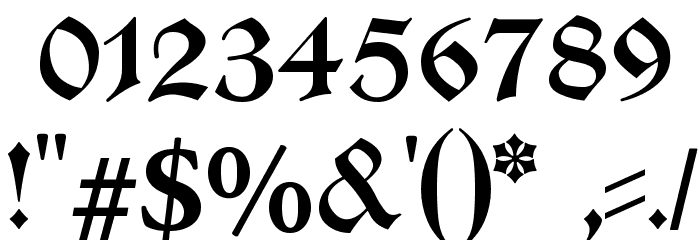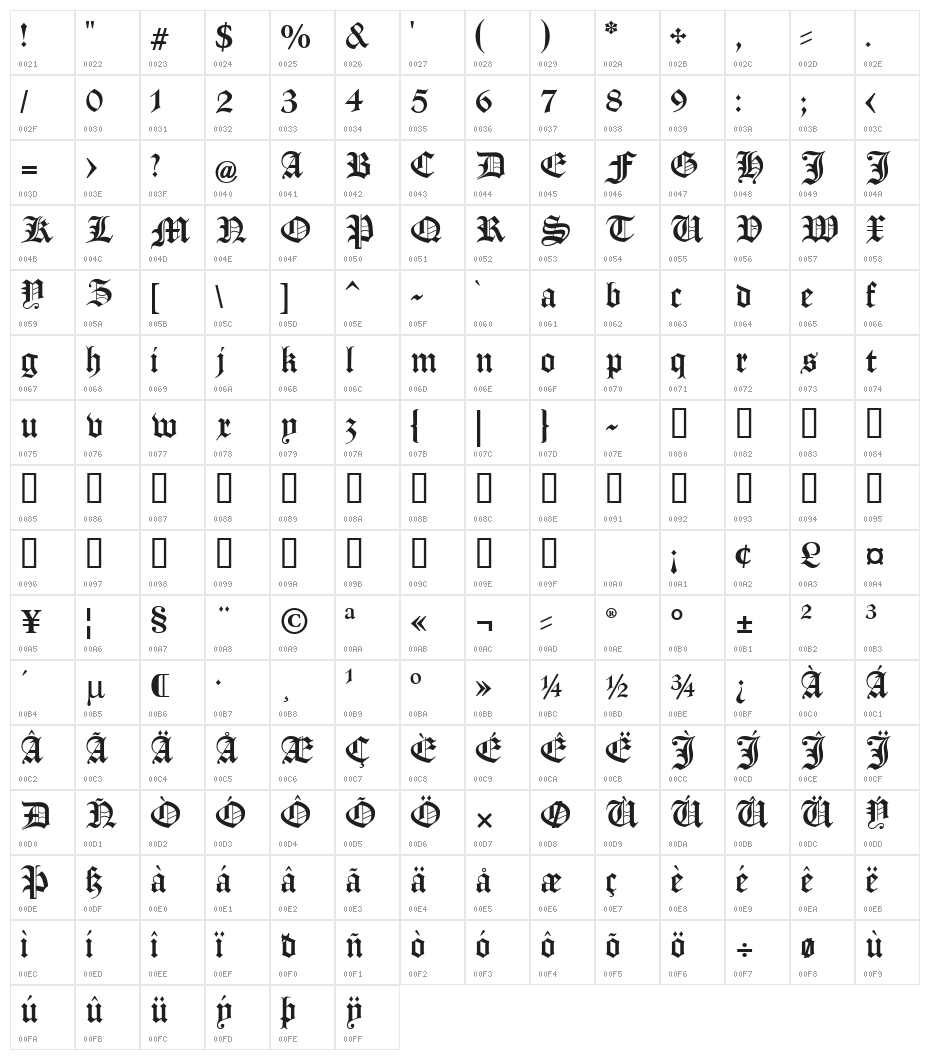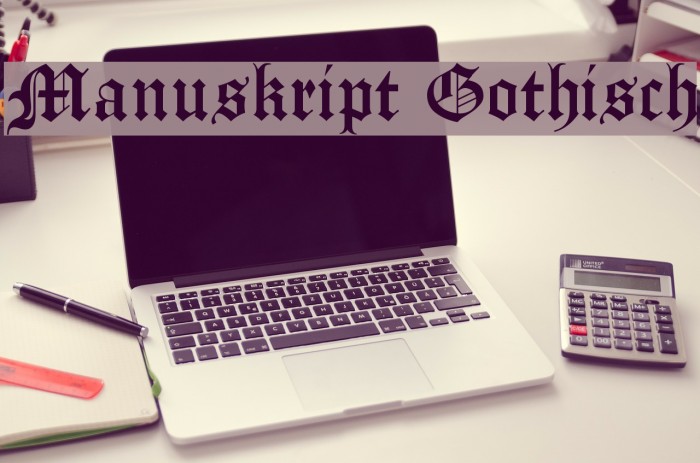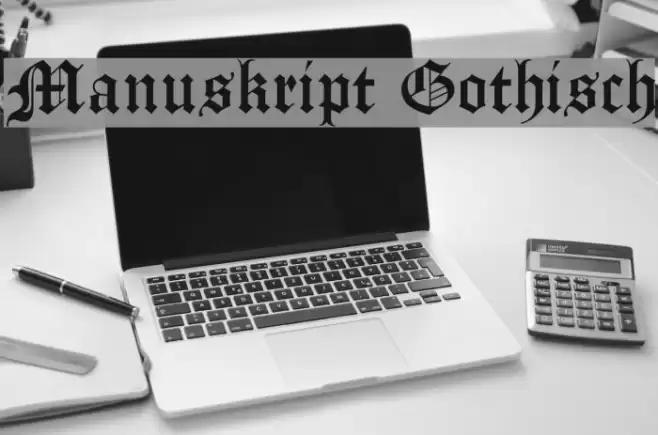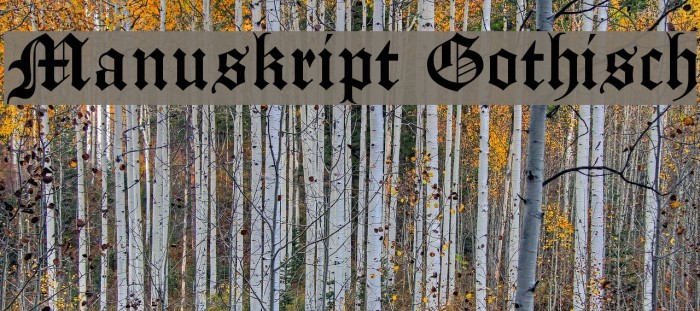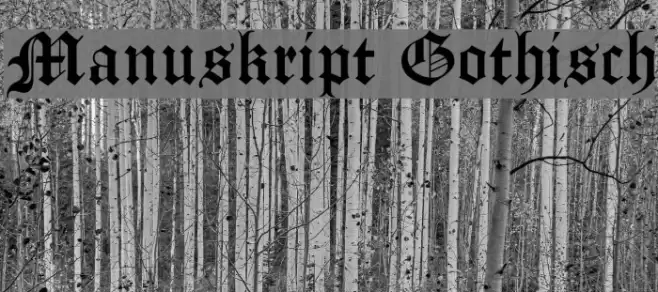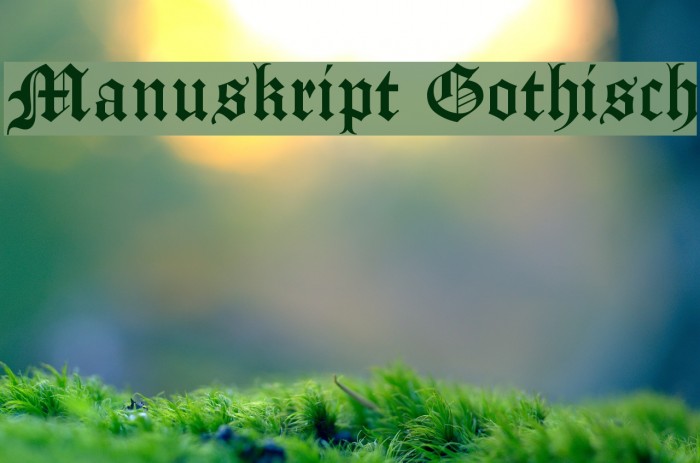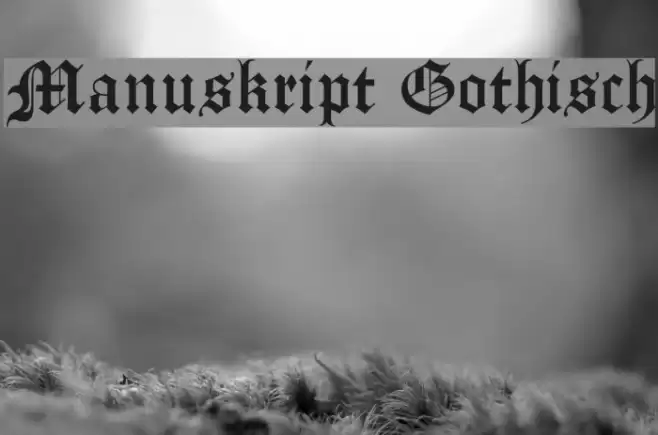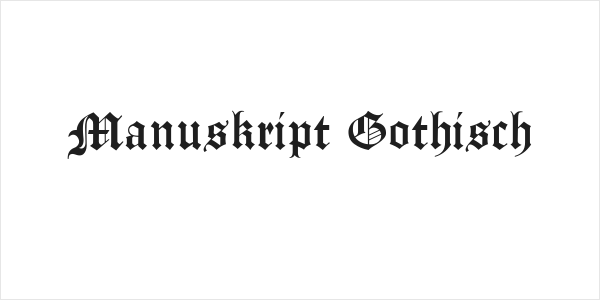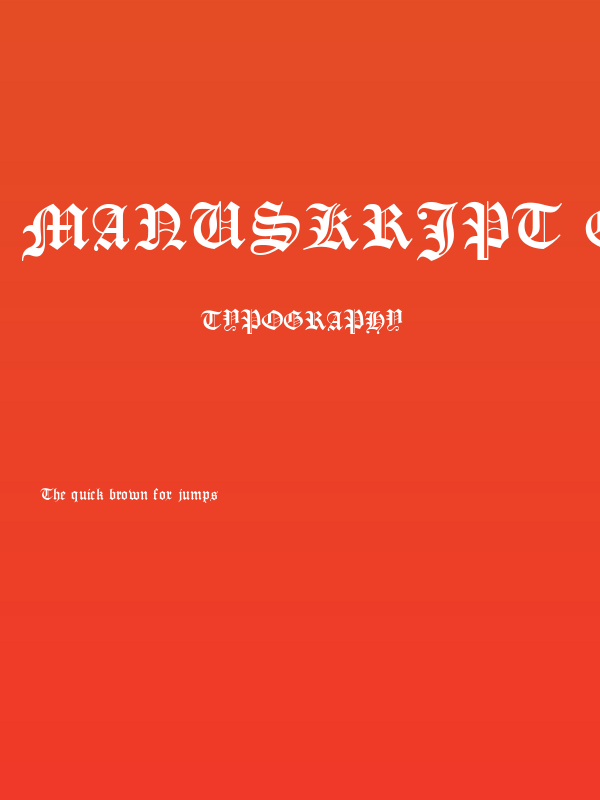
Manuskript Gothisch Font
Manuskript Gothisch Description
This font exhibits a classic blackletter style, characterized by its ornate and intricate letterforms. The uppercase letters feature sharp, angular lines with elaborate serifs, while the lowercase letters maintain a consistent gothic aesthetic with pointed arches and dramatic strokes. The numerals and special characters are equally stylized, maintaining the overall medieval appearance. This font is reminiscent of traditional manuscript writing, often associated with historical documents and old-world charm. Its bold presence and high contrast between thick and thin strokes make it a striking choice for decorative purposes.